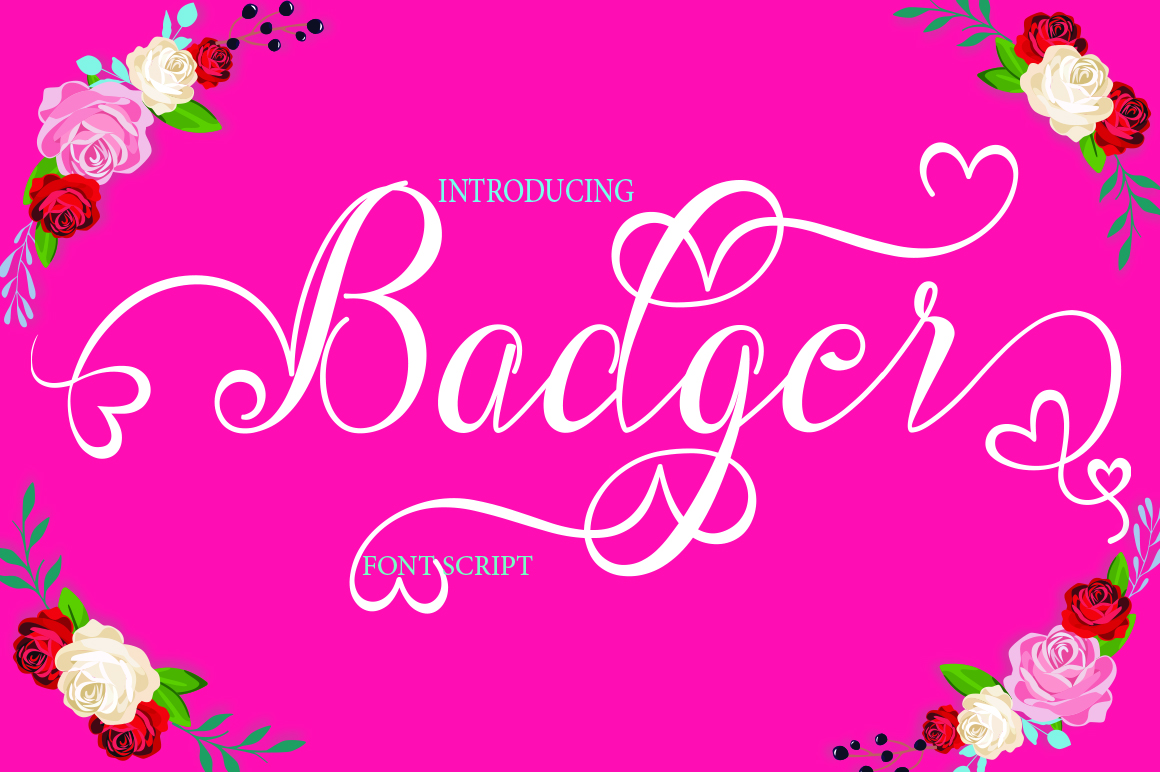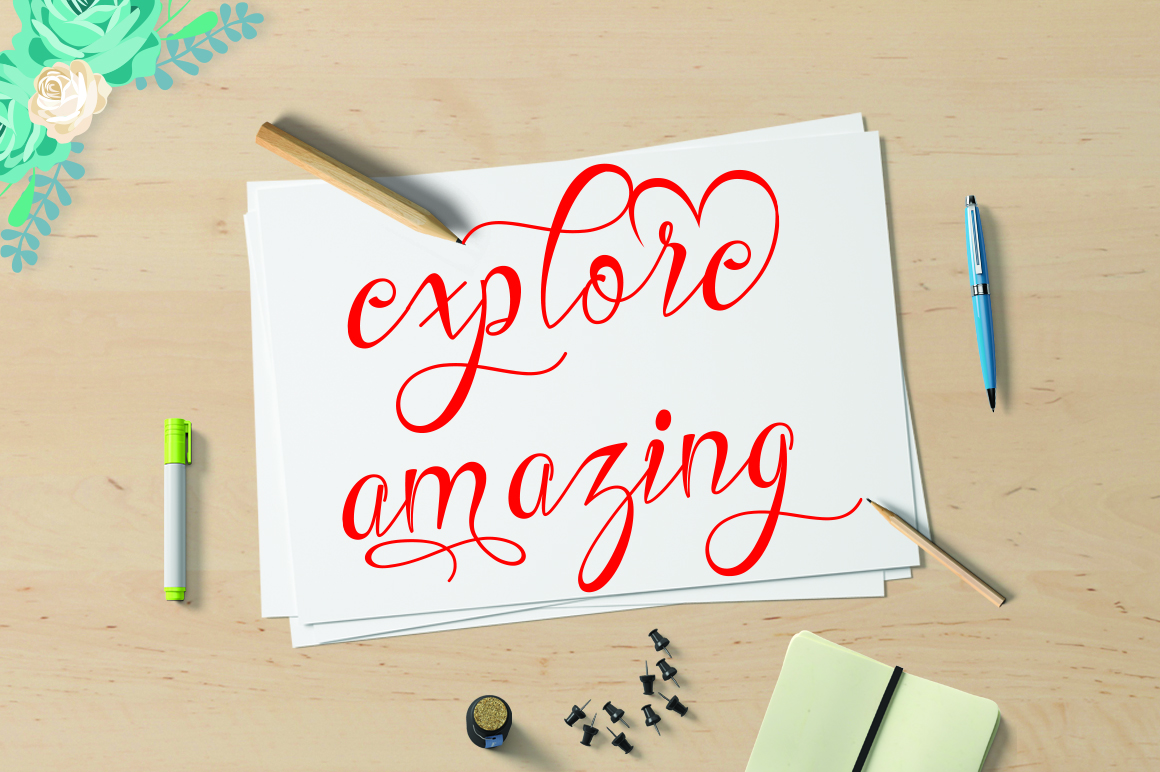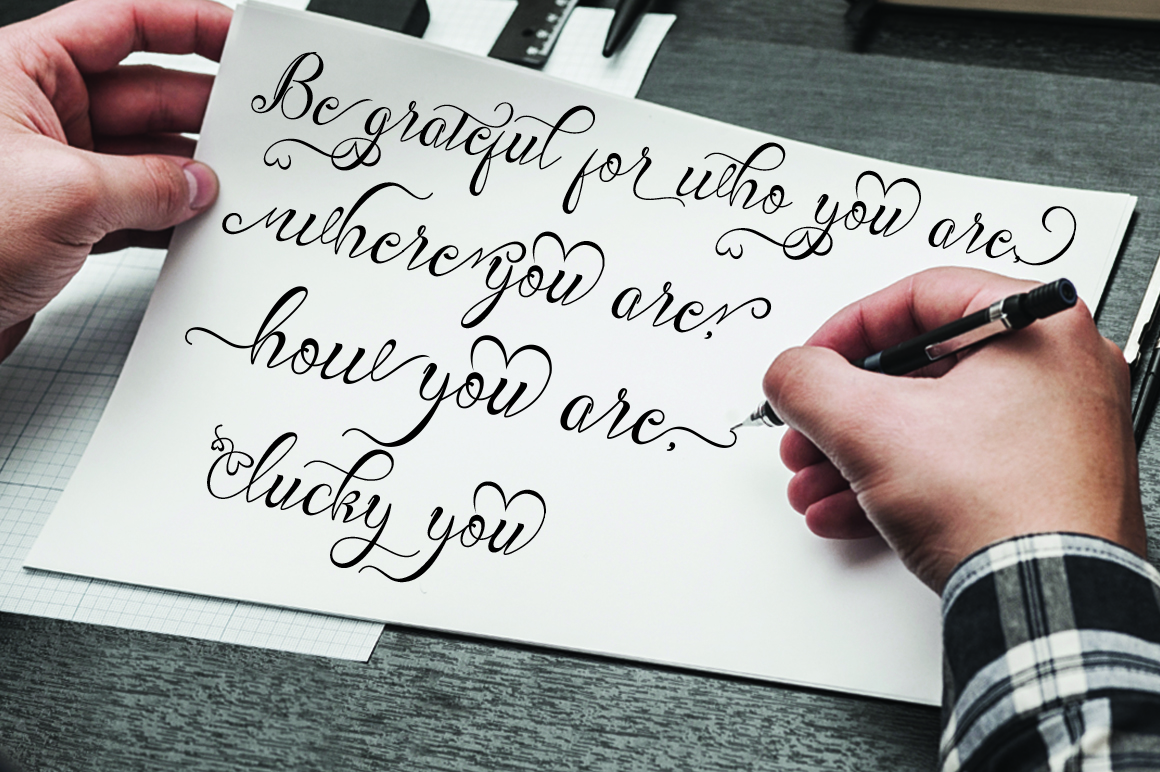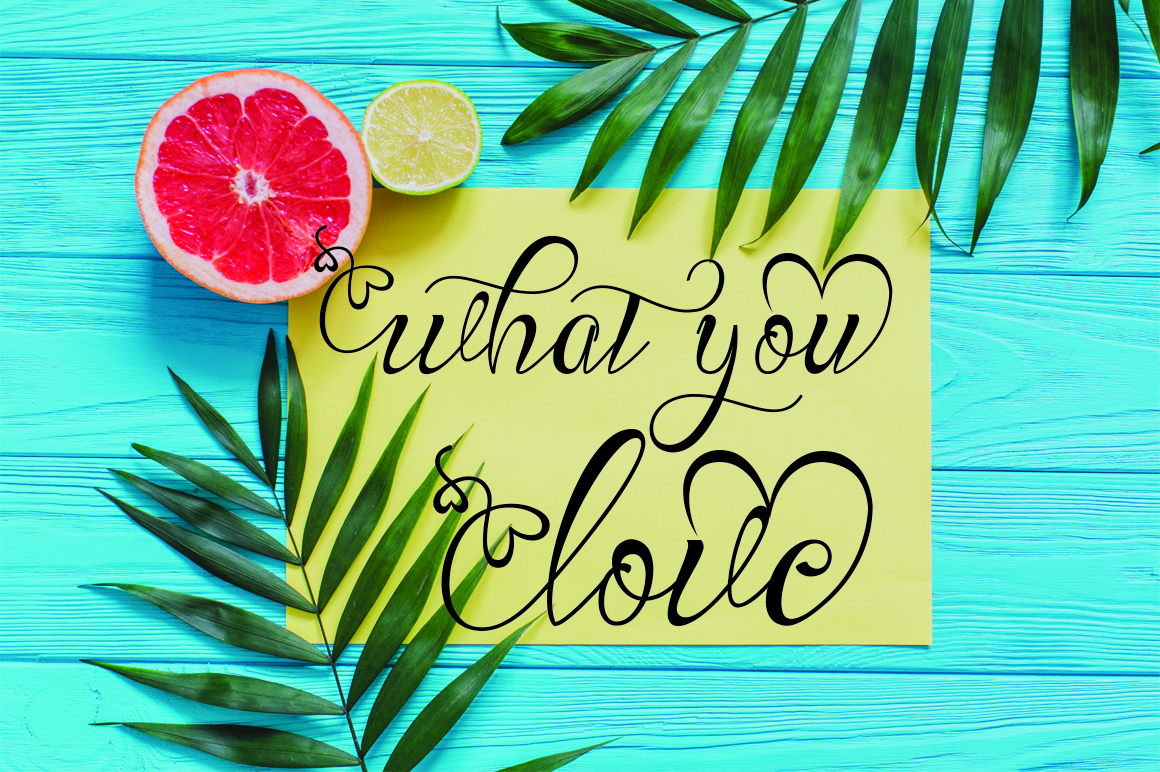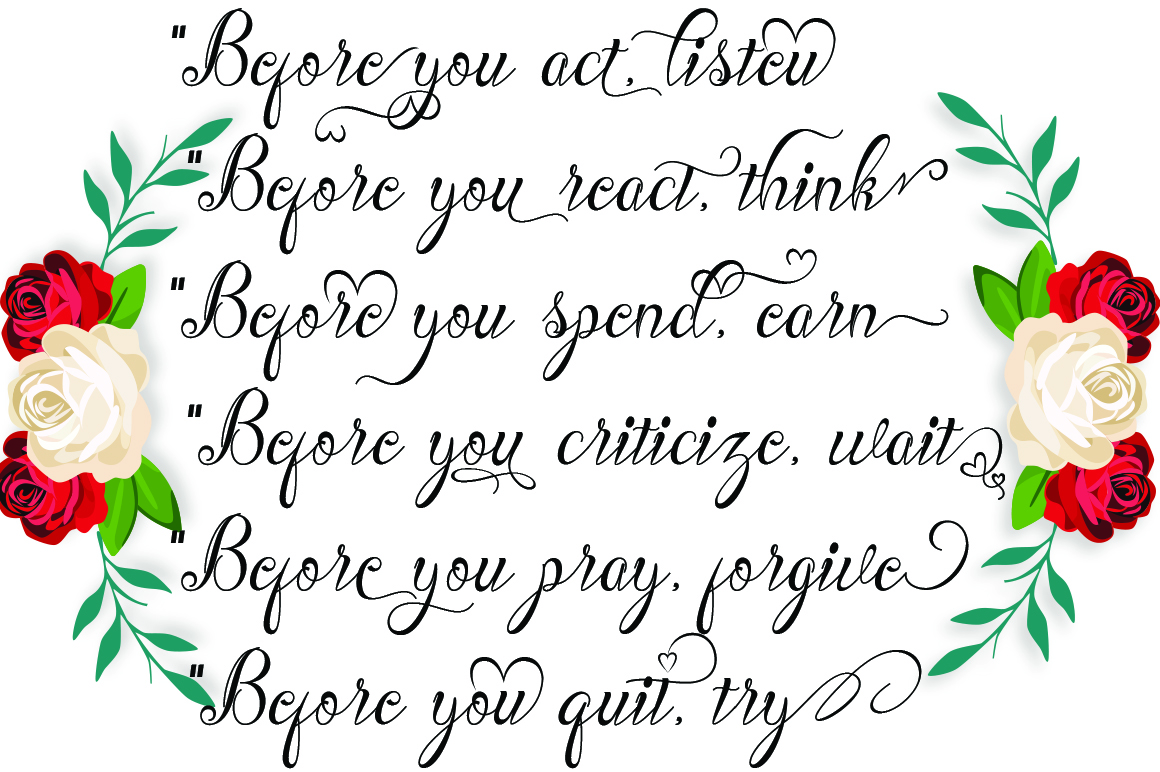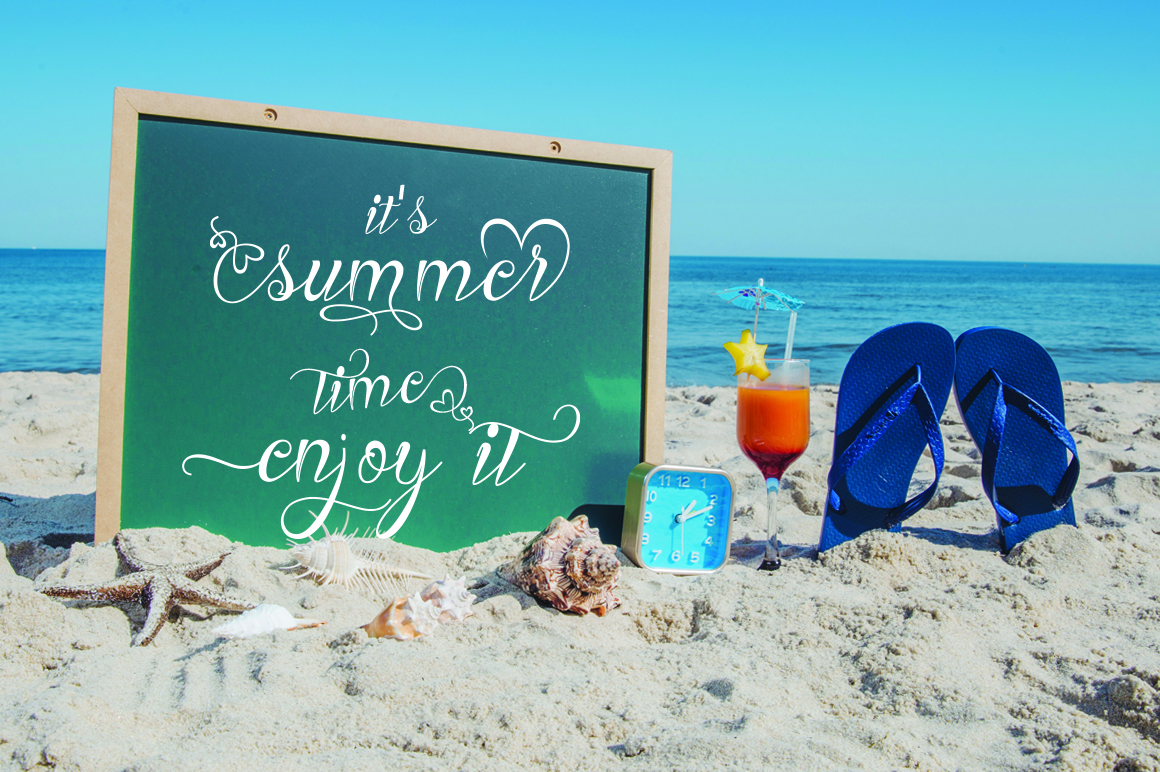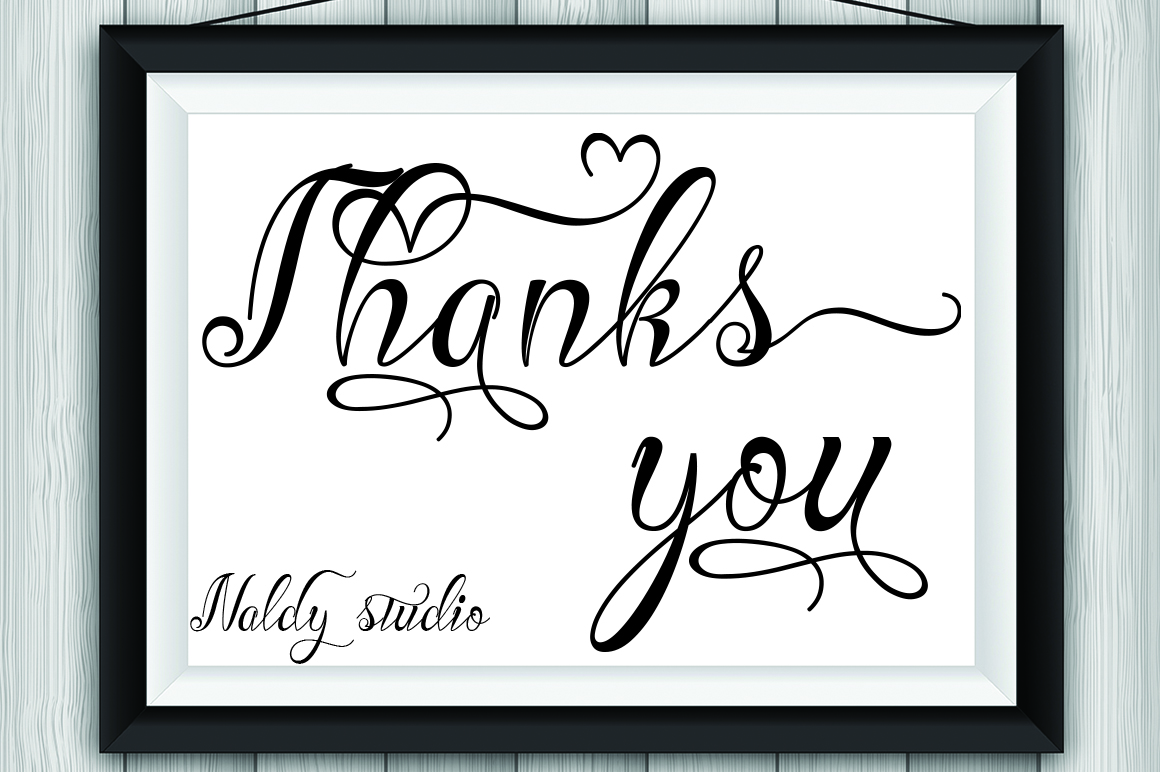
HomeScript FontsBadger Font Script Fonts Badger Font FacebookXPinterestWhatsApp Badger Font Poster 2 Badger Font Poster 3 Badger Font Poster 4 Badger Font Poster 5 Badger Font Poster 6 Badger Font Poster 7 About Badger Font Badger is a modern handwritten font, packed with bonus features. DOWNLOAD NOW People also explored Multipie Font Morning Glory Font Beng Beng Font Chigland Font Alleandra Smith Font Bella Notes Font Plague Celvin Font Glamorous Carpet Font 288 0 TagsBadger Font Previous articleMeidina FontNext articleYullisa Script Font LEAVE A REPLY Cancel reply Comment: Please enter your comment! Name:* Please enter your name here Email:* You have entered an incorrect email address! Please enter your email address here Website: Save my name, email, and website in this browser for the next time I comment. Personal Use Free Wildwest Personal Use Free Read more about this font Larosh Sithal Duo Personal Use Free Read more about this font Farmgarden Personal Use Free Read more about this font Abingdon Personal Use Free Read more about this font BLOG Where to Buy American Fonts Online in 2024 Where to Buy American Fonts Online: The Ultimate Guide for 2024 Looking for the perfect American font to elevate your design projects? You're in the... How to Install and Use Fonts on Windows, macOS, and Web Projects How to Cut Any Font on Cricut: Convert a Font to SVG (Free) To increase your work productivity, choose the most readable fonts.